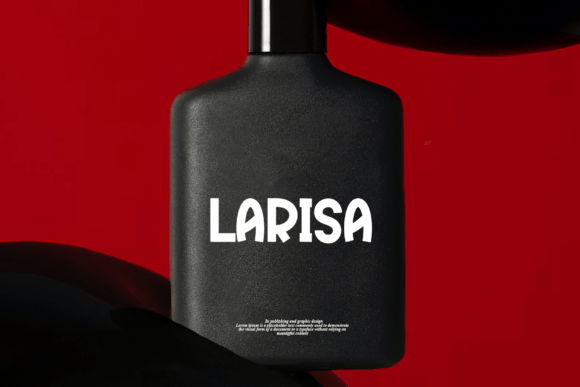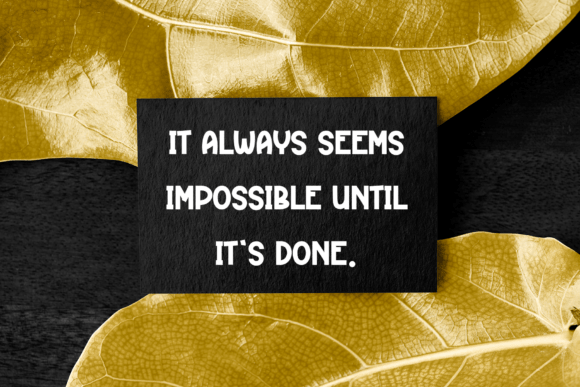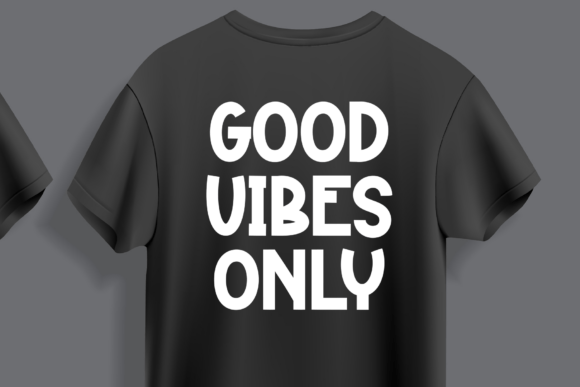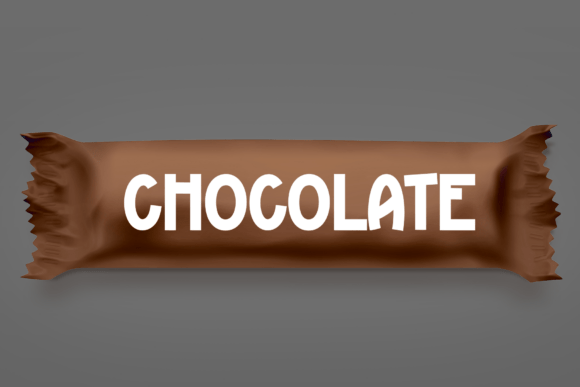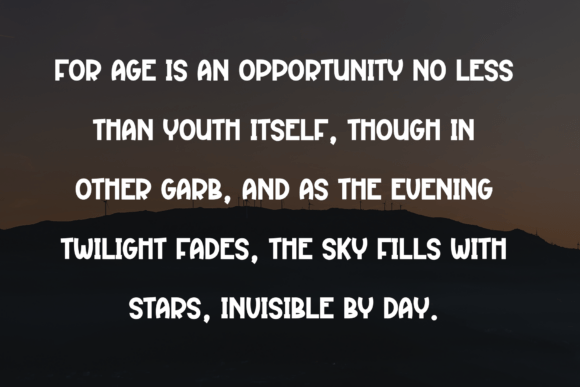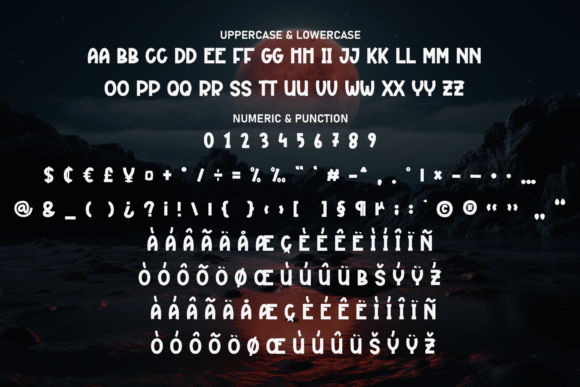
Introducing Full Moon Font: The Perfect Blend of Simplicity and Friendliness
Are you on the hunt for a font that effortlessly combines modern simplicity with a warm, approachable vibe? Look no further than Full Moon Font, a casual and neat display font designed to elevate your designs with its unique charm. In this article, we’ll dive into the features, benefits, and uses of Full Moon Font, and explore why it’s become a go-to choice for designers and crafters alike.
Clean Lines, Balanced Letterforms, and Subtle Rounded Edges
Full Moon Font boasts clean lines, balanced letterforms, and subtle rounded edges that give it a distinctive, modern look. This font’s design is rooted in the principles of modern handwritten typography, with a polished finish that sets it apart from more traditional fonts. The subtle rounded edges add a touch of warmth and friendliness, making it perfect for designs that require a personal and approachable feel.
Ideal for Branding, Headlines, Packaging, and Digital Content
Full Moon Font is an incredibly versatile font that can be used in a wide range of design applications. Whether you’re working on a branding project, creating headlines for a website or social media platform, designing packaging for a product, or crafting digital content, this font is sure to deliver. Its crisp structure and versatile style make it easy to pair with other fonts and design elements, ensuring that your designs always look polished and professional.
Adding a Warm and Inviting Touch to Your Designs
One of the standout features of Full Moon Font is its ability to add a warm and inviting touch to any design. The font’s friendly, approachable vibe makes it perfect for designs that require a personal and human touch. Whether you’re creating designs for a client or working on a personal project, Full Moon Font is sure to help you connect with your audience and convey your message in a clear and compelling way.
So, what are the benefits of using Full Moon Font for designers and crafters? Here are just a few:
- Easy to read and understand: Full Moon Font’s clean lines and balanced letterforms make it easy to read and understand, even at small sizes.
- Versatile: This font can be used in a wide range of design applications, from branding and headlines to packaging and digital content.
- Unique and distinctive: Full Moon Font’s subtle rounded edges and modern design give it a unique and distinctive look that sets it apart from more traditional fonts.
- Time-saving: With Full Moon Font, you can create professional-looking designs quickly and easily, saving you time and effort.
Tips for Using Full Moon Font
Here are a few tips for using Full Moon Font in your designs:
- Pair it with other fonts: Full Moon Font pairs well with a wide range of fonts, from traditional serif fonts to modern sans-serif fonts.
- Use it for headlines and titles: Full Moon Font is perfect for headlines and titles, where its clean lines and balanced letterforms can really shine.
- Experiment with different colors: Full Moon Font looks great in a wide range of colors, from bold and bright to subtle and muted.
In conclusion, Full Moon Font is a casual and neat display font that combines simplicity with a friendly, approachable vibe. With its clean lines, balanced letterforms, and subtle rounded edges, it’s perfect for designers and crafters who want to add a warm and inviting touch to their designs. Whether you’re working on a branding project, creating headlines for a website or social media platform, designing packaging for a product, or crafting digital content, Full Moon Font is sure to deliver. So why not give it a try and see the difference it can make in your designs?